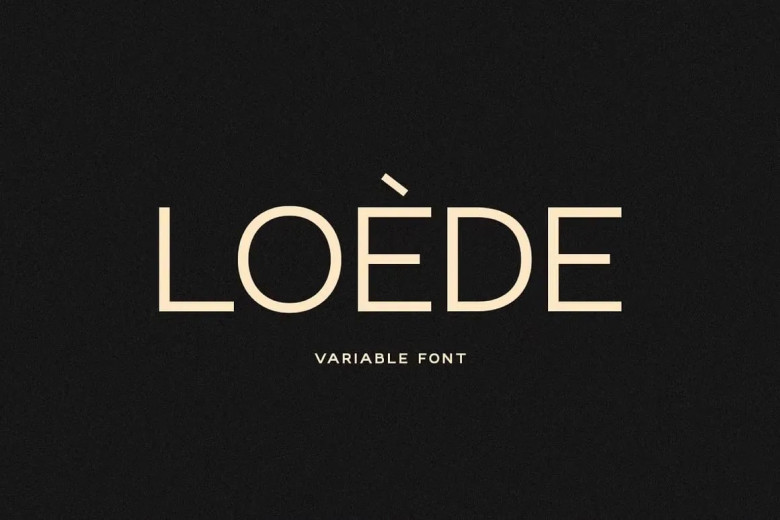
Loede Font
Loede is an elegant sans-serif font designed to provide balanced and clear designs, featuring weights ranging from black to lighter for seamless integration into various projects, such as branding headers and logos. Both static and variable fonts are available, helping your designs get noticed fast using Loede – discover timeless elegance today.
Loede Sans Serif Font Family